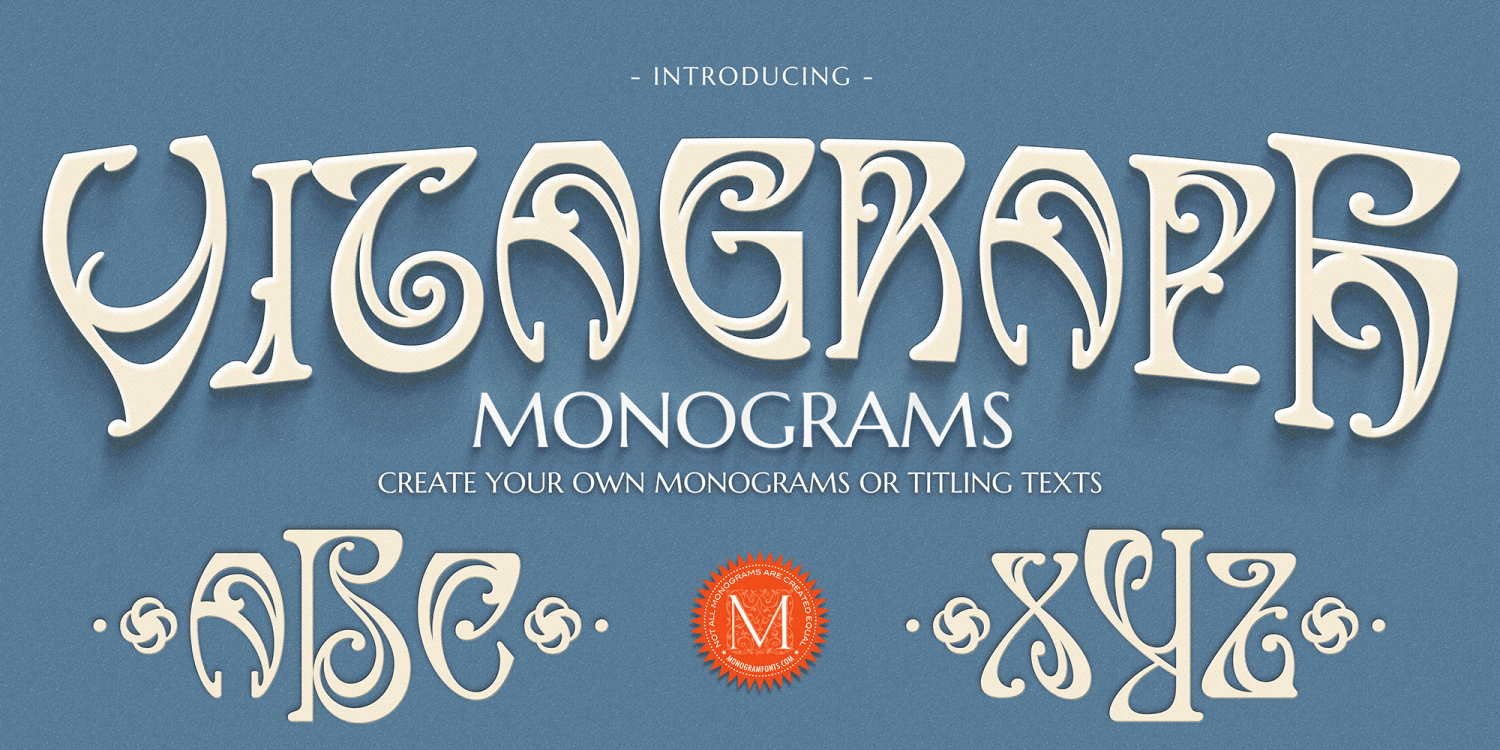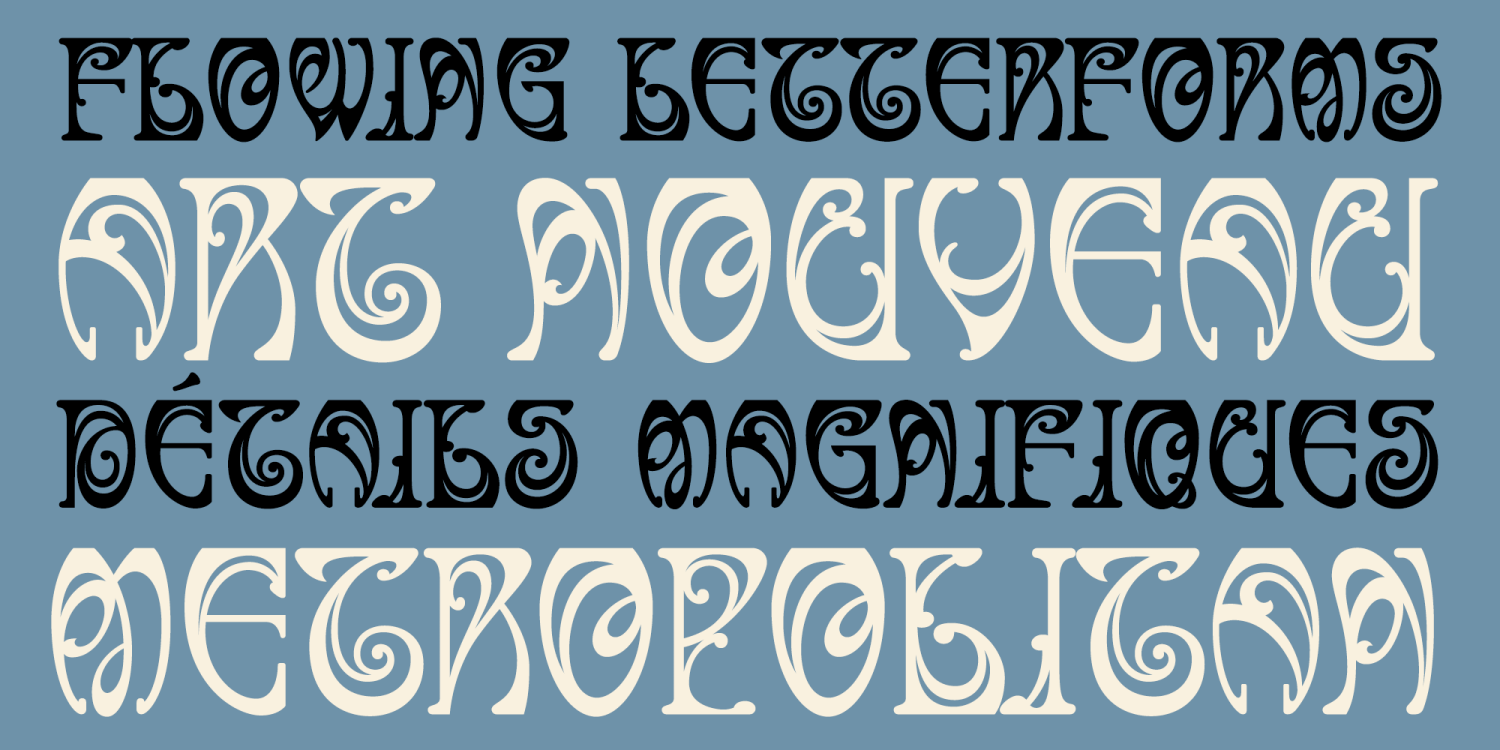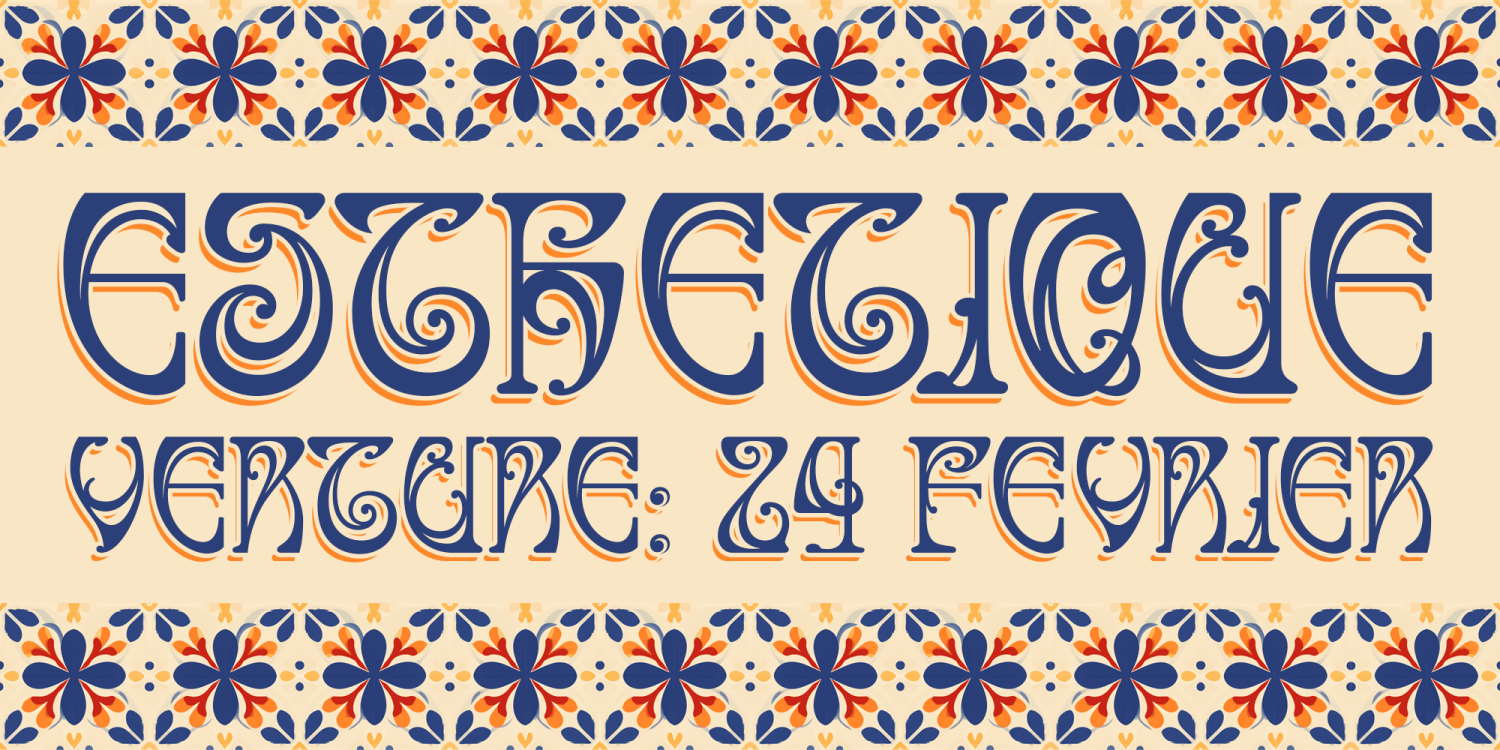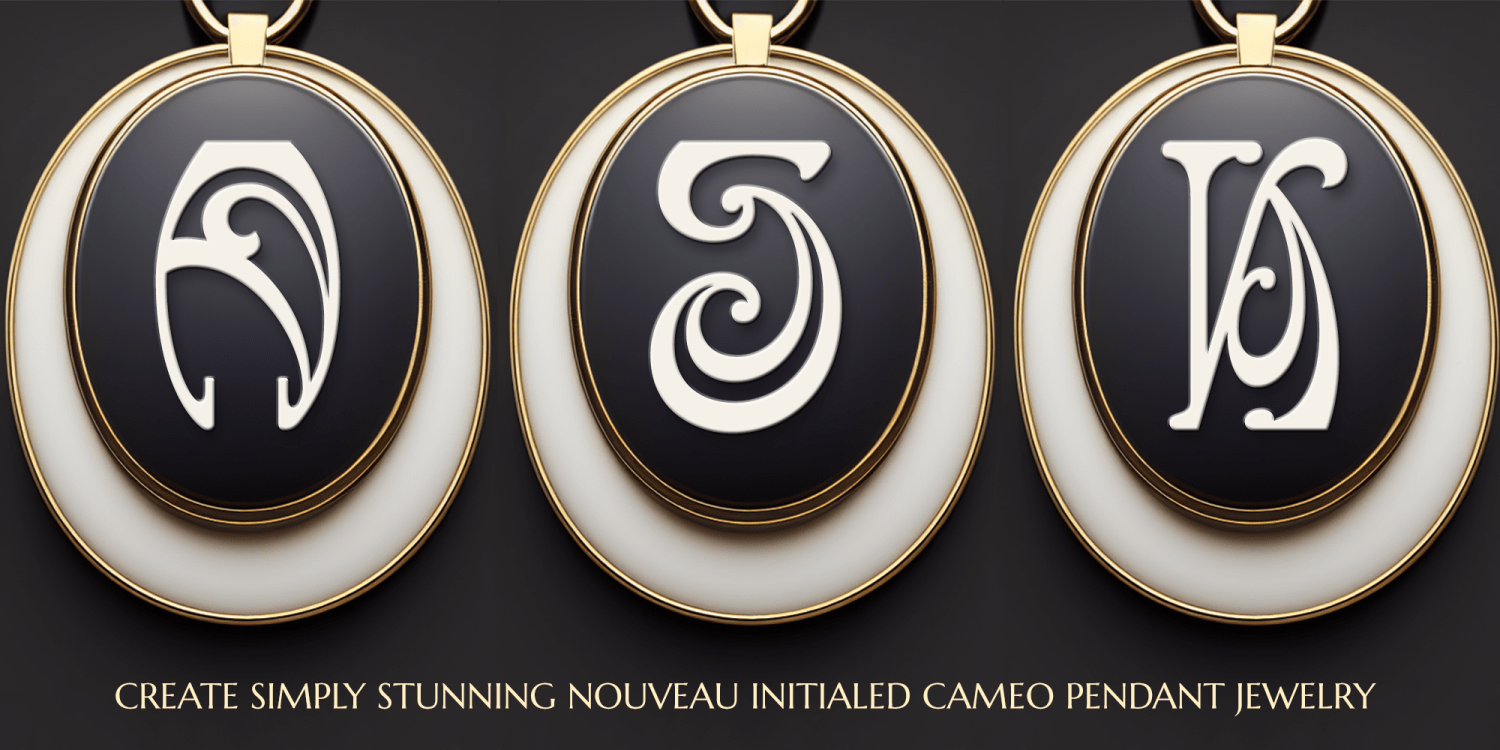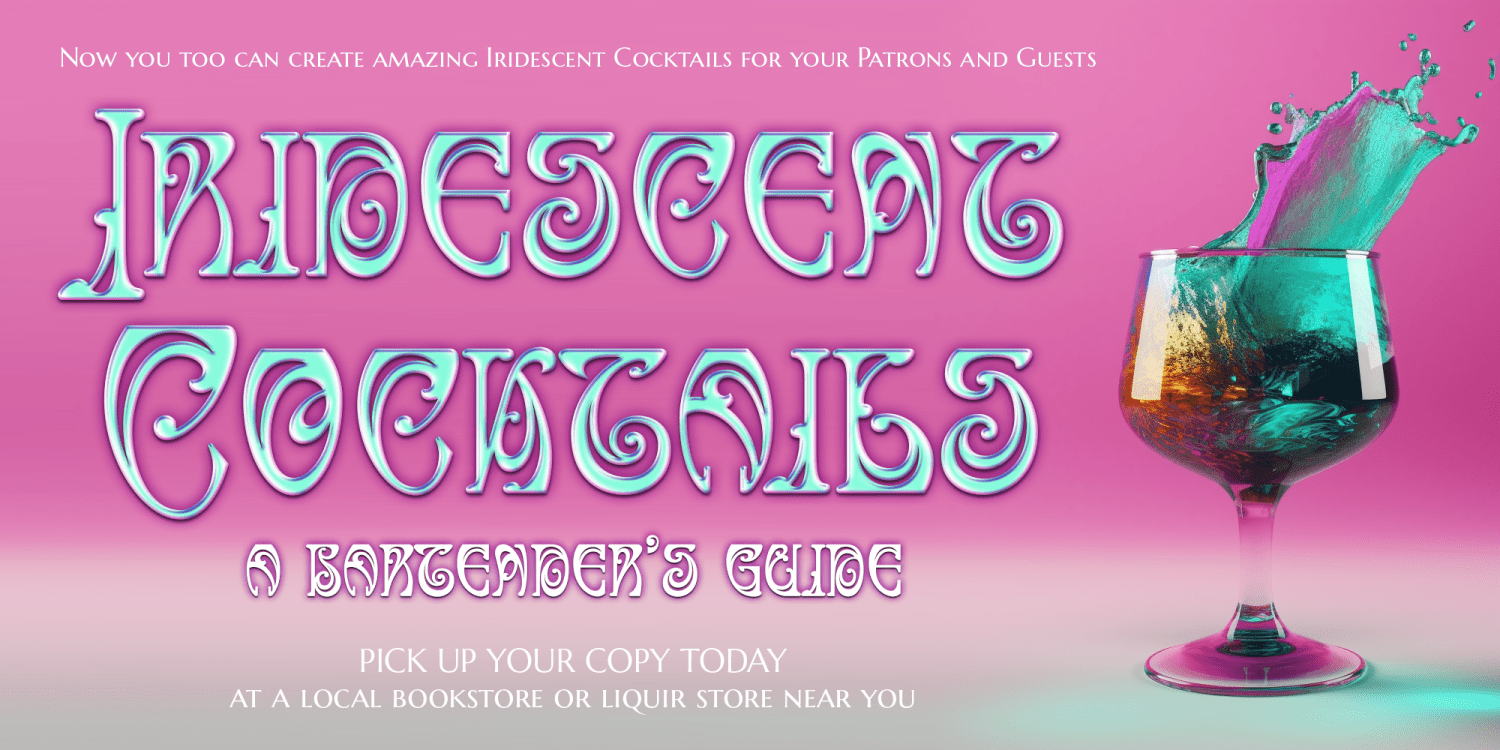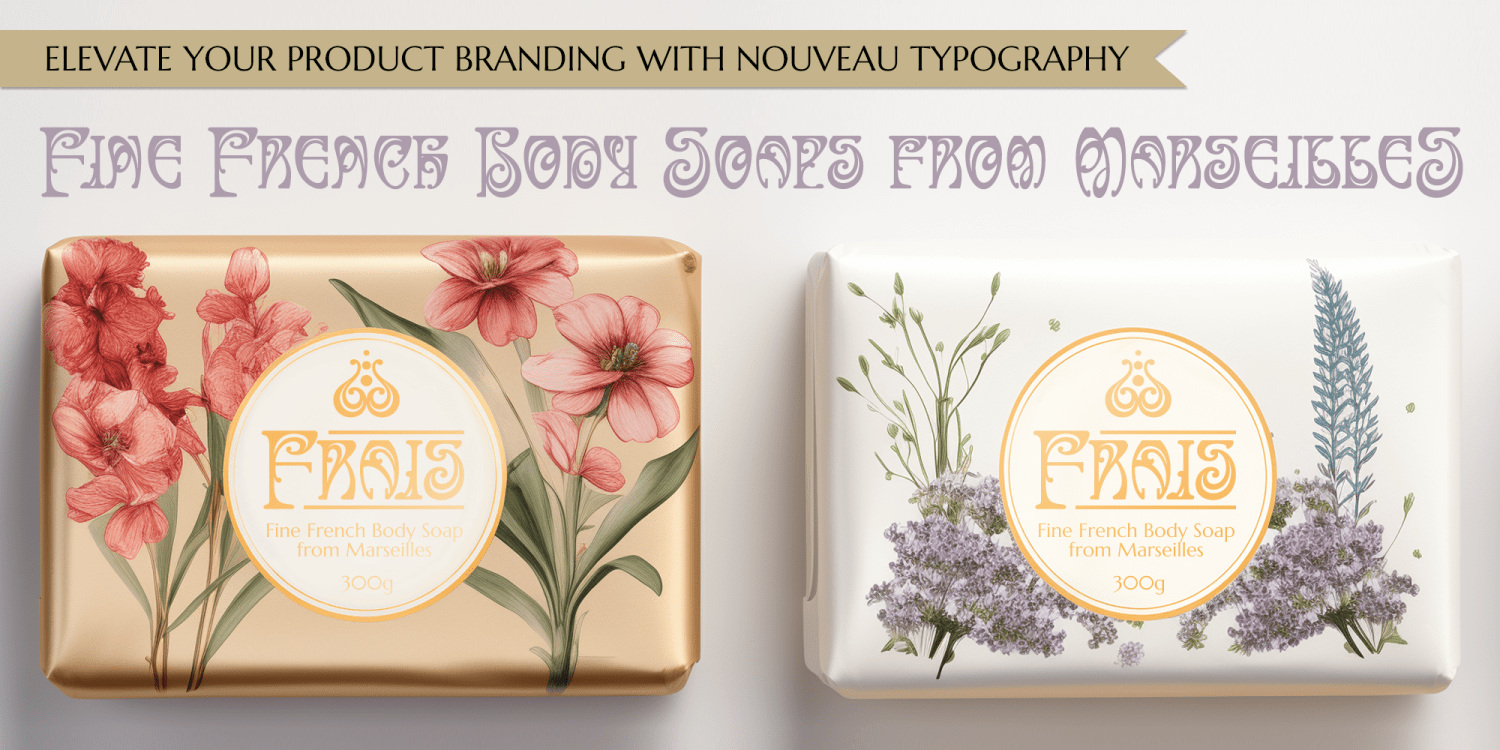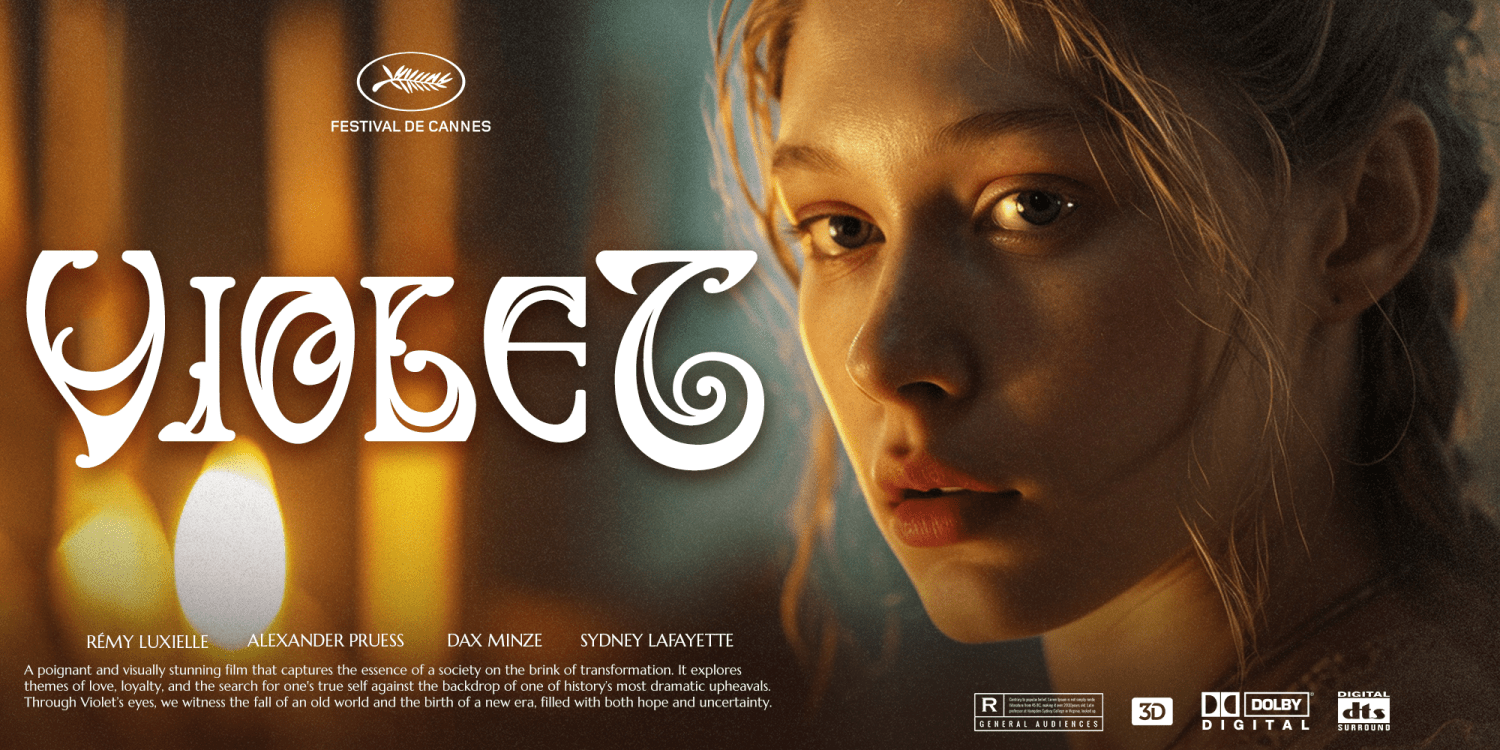
MFC Vitagraph Monogram
Font Family by Monogram Fonts Co
The source of inspiration for MFC Vitagraph Monogram is a beautifully styled nouveau alphabet from JM. Bergling’s 1914 book on Monograms and Engraving Alphabets. This elegant decorative style was shown only displayed as Capital letters mainly in an outline format, so we took it further by crafting matching Smallcaps, Numerals, and a comprehensive character set to flesh it out.
MFC Vitagraph Monogram can create one, two, or three letter monograms as well as basic headline and titling settings. It is a refined look that is elegant and stunning.
MFC Vitagraph Monogram's numeral set and bullet dividers allow for even more detailed and personalized monograms. If you want to create a more customized look, you can add a <> around another monogram for a stylized design.
And lastly, due to its traditional smallcaps - Capitals - smallcaps composition, Decatur Monogram can also type unique headings & titles.